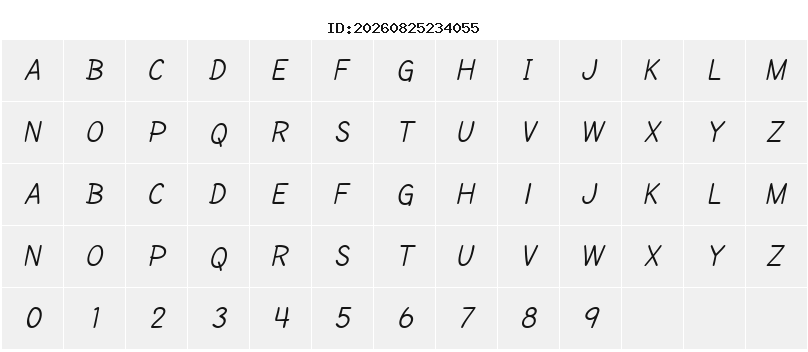
SF Cartoonist Hand SC Preview
• Font Name: SF Cartoonist Hand SC
• Full Font Name: SF Cartoonist Hand SC Italic
• PostScript Name: SFCartoonistHandSC-Italic
• Designer: ShyFonts Type Foundry
About SF Cartoonist Hand SC.ttf
SF Cartoonist Hand SC.ttf is a modern, elegant sans-serif font designed for ultimate readability and visual harmony. Perfect for branding, headlines, web design, and print materials.